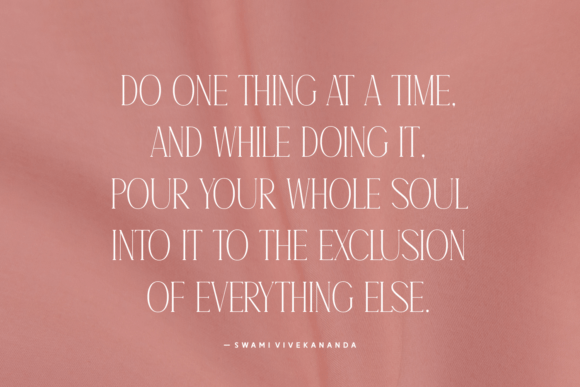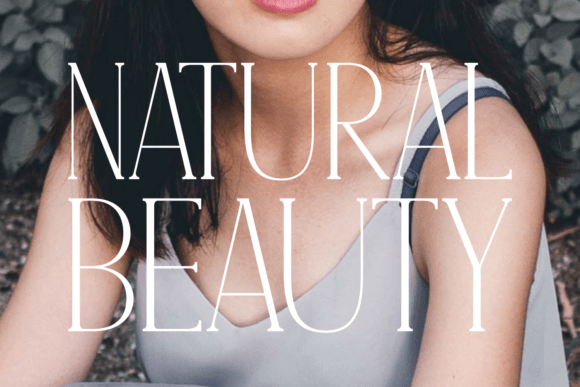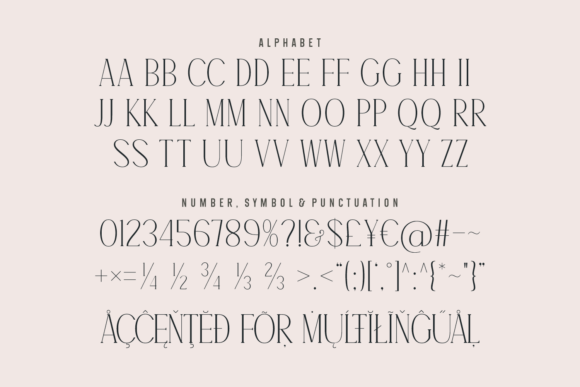
Introduction to Minors Font
Minors is a high-contrast modern serif font that blends timeless elegance with minimalist sophistication.
With its long, slender letterforms and refined curves, Minors radiates fashion-forward charm and editorial finesse Perfect for luxury branding, magazine headlines, packaging, and stylish social media graphics, this typeface is designed to leave a lasting impression.